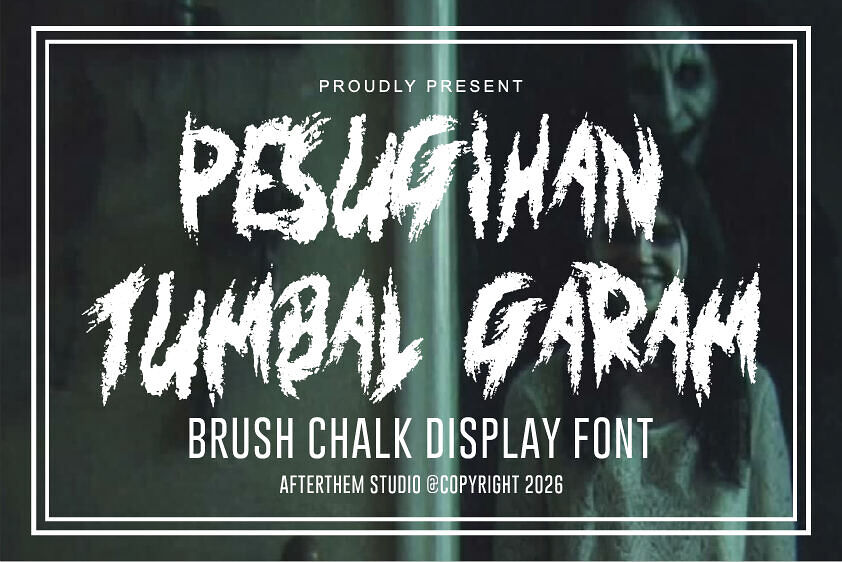
Pesugihan Tumbal Garam Font
Pesugihan Tumbal Garam Font is a gritty, horror-inspired display typeface with rough, brush-like strokes that evoke a chilling, hand-drawn feel.
Its jagged, distressed characters create dramatic contrast and visual tension, making it ideal for spooky posters, thriller titles, or horror-themed designs. This bold, macabre style brings intense energy and raw texture to any project needing an eerie, standout aesthetic.
Designed by: Afterthem Studio